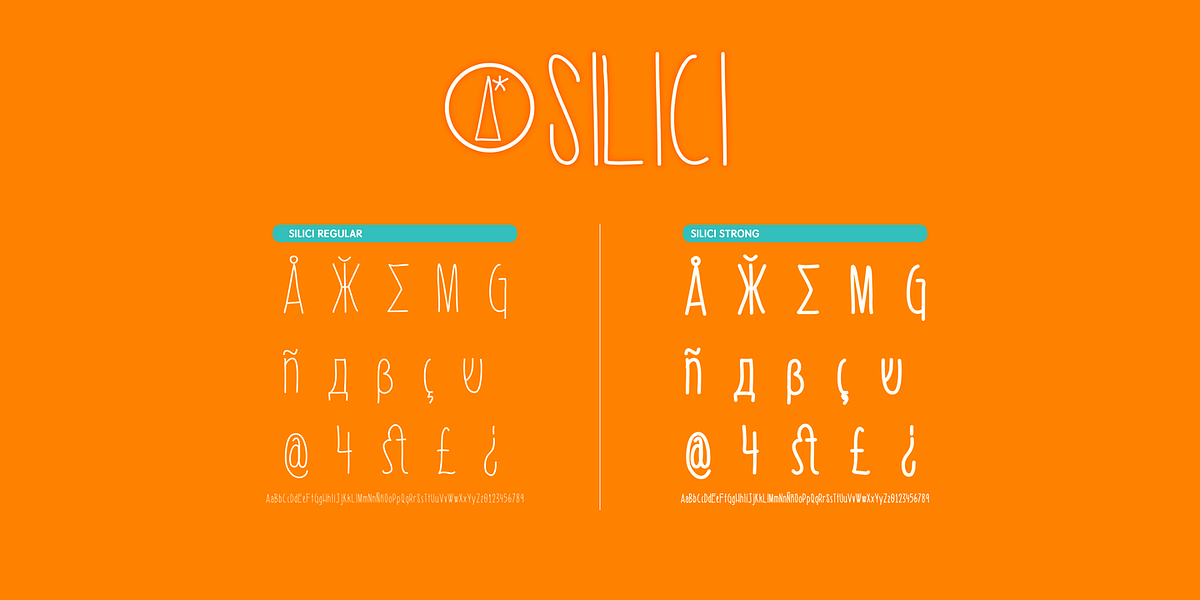
Silici
This hand-drawn brush script font mimics the look of handwritten marker text. Its casual and expressive style makes it suitable for branding, illustrations, and other creative projects.